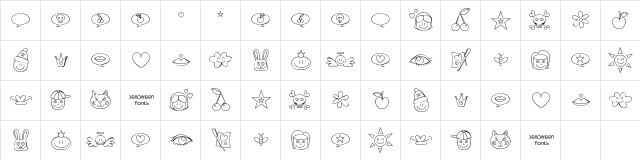
Jellodings Regular
| Foundry | Tjarda Koster |
| Designer | Tjarda Koster |
Design Context for Jellodings Typeface
Jellodings is a composed and adaptable typeface that performs quietly and consistently across a wide range of design contexts.